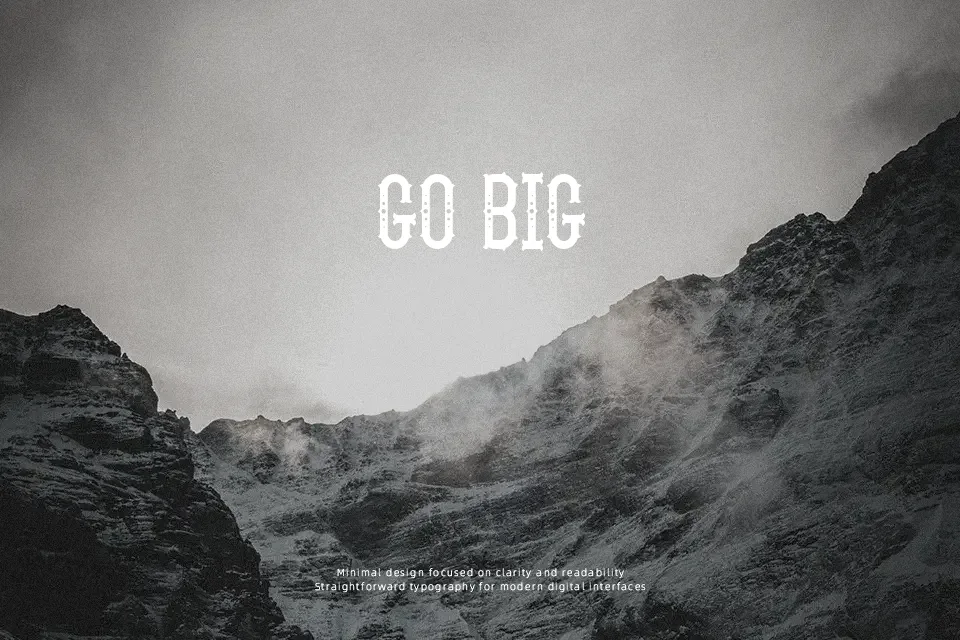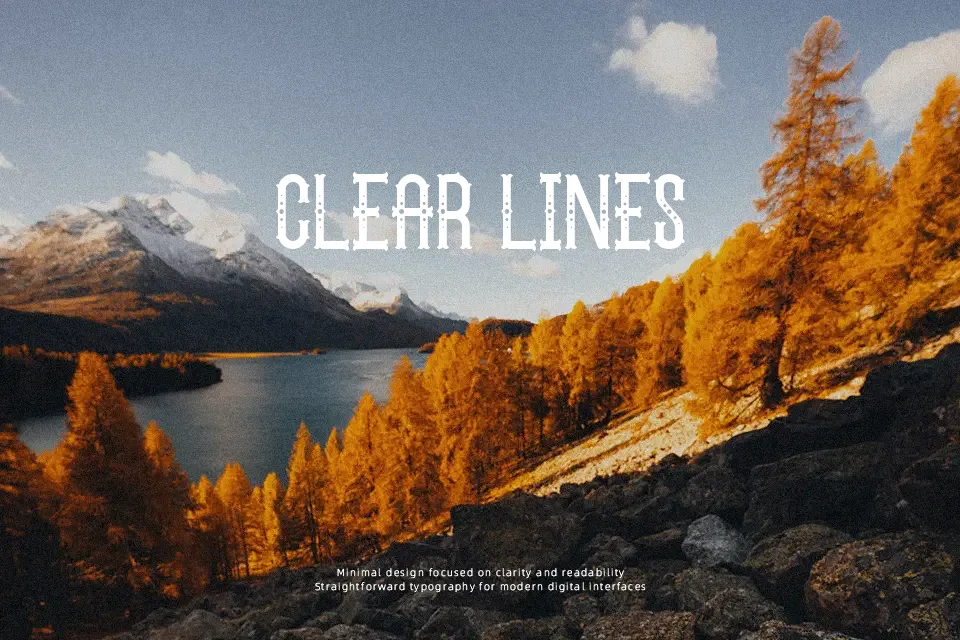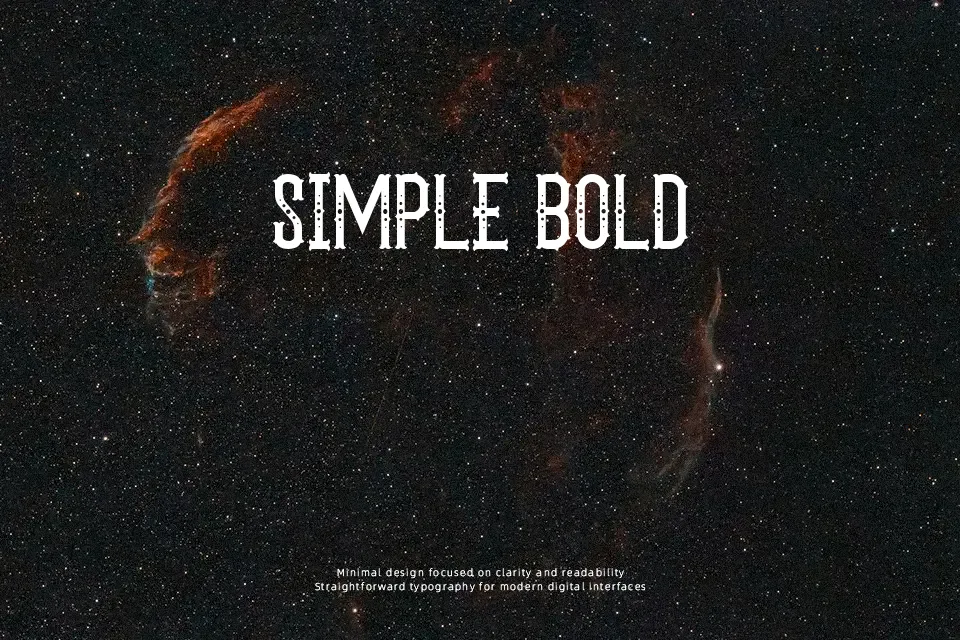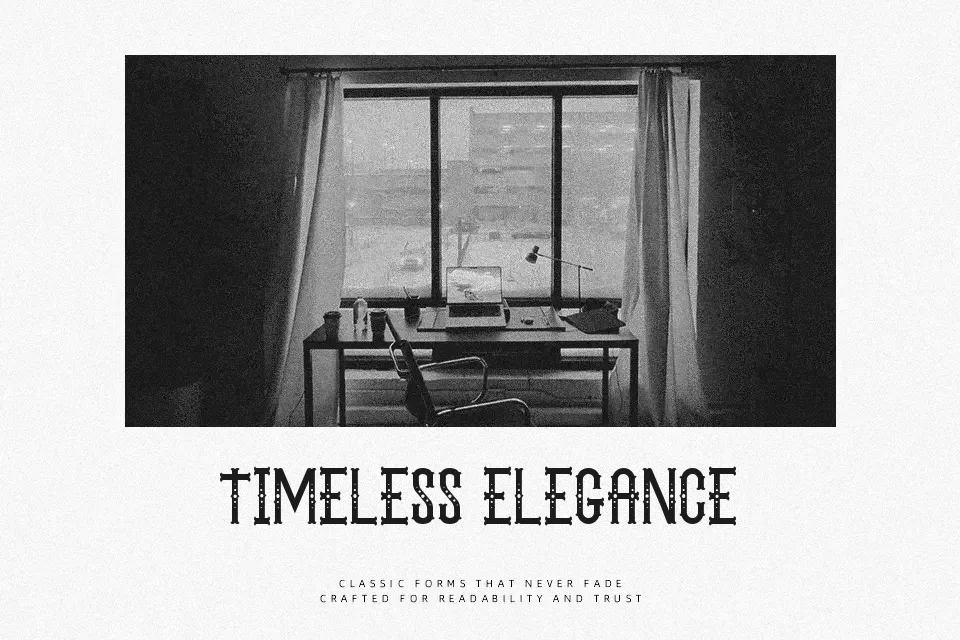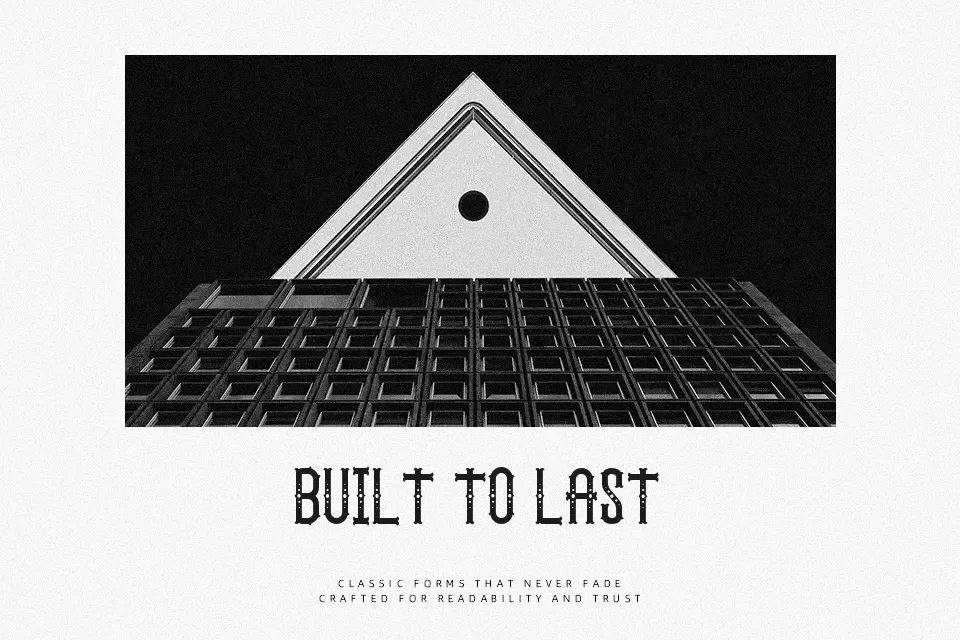
The Circus Show Font
The Circus Show Font establishes an immediate carnival presence with bold decorative serifs, exaggerated spur details, and pronounced stroke contrast across all capitals. Sturdy vertical stems balance against tapered inner curves, maintaining legible forms even when adorned with theatrical vintage flourishes. Character spacing remains moderately compact to keep short headline phrases visually unified without overlapping distinct glyph contours. While the design commands instant attention in festival banners and themed merchandise, these ornate shapes quickly degrade in continuous reading formats. Dense structural styling proves ineffective for prolonged body copy, yet delivers exceptional punch in prominent titular roles.
Best For: carnival event posters, vintage festival banners, arcade marquee signs, themed merchandise packaging
Not Ideal For: continuous body text, mobile interface labels, dense editorial paragraphs, legal contract documents